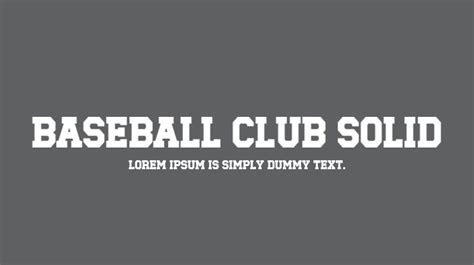
Hey guys! Are you looking to add a sporty and dynamic touch to your designs? Look no further! The iBaseball Club Solid Font is a fantastic choice for anyone wanting to inject some energy and a bit of that ballpark feel into their projects. Whether you’re designing a logo for a sports team, creating eye-catching posters, or just want a font that stands out, this could be exactly what you need. In this guide, we’ll walk you through everything you need to know about the iBaseball Club Solid Font and how to download it for free. Let’s dive in!
What is iBaseball Club Solid Font?
iBaseball Club Solid Font is a typeface designed to capture the essence of baseball and sports culture. Its solid, bold letters convey strength, reliability, and a sense of team spirit, making it perfect for various applications where you want to make a strong visual statement. This font typically features clean lines and a sturdy appearance, making it highly legible and impactful, whether used in large headlines or smaller text blocks. Its distinctive character makes it a favorite among designers looking to add an athletic vibe to their work.
The iBaseball Club Solid Font distinguishes itself through several key characteristics. Firstly, its robustness gives it a commanding presence, ideal for grabbing attention. Secondly, the clean, uncomplicated design ensures excellent readability across different media and sizes. Thirdly, its versatility allows it to be used in diverse projects, ranging from sports branding and advertising to event promotions and merchandise designs. Lastly, its ability to evoke a sense of nostalgia and connection to baseball culture makes it particularly appealing for projects targeting sports enthusiasts.
When considering similar fonts, options like Collegiate, Impact, and Bebas Neue come to mind, but iBaseball Club Solid Font often provides a unique blend of traditional athletic aesthetics with a modern touch. While Collegiate fonts lean heavily into the classic varsity look, and Impact offers extreme boldness, iBaseball Club Solid Font balances these qualities with a contemporary feel. Bebas Neue, known for its clean and tall sans-serif style, lacks the specific sporty character that iBaseball Club Solid Font brings to the table. This makes the iBaseball Club Solid Font a sweet spot for designers seeking something both familiar and fresh.
Why Use iBaseball Club Solid Font?
There are several compelling reasons to use the iBaseball Club Solid Font in your design projects. Primarily, its strong, assertive style makes it perfect for grabbing attention. If you’re working on a project where you need to make a bold statement, this font can be an invaluable asset. Whether you’re designing a sports team logo, creating promotional materials for a game, or developing merchandise, this font ensures your message is delivered with impact. Its solid structure conveys reliability and strength, key qualities for any sports-related brand.
Another significant advantage of using the iBaseball Club Solid Font is its versatility. While it’s particularly well-suited for sports-themed designs, it can also be effectively used in various other contexts. Its clean and legible design makes it suitable for headlines, posters, and even body text, depending on the specific application. This adaptability means you can incorporate it into a wide range of projects, from website headers and social media graphics to print advertisements and event invitations. Its ability to maintain clarity across different sizes and media formats ensures consistent visual appeal.
Moreover, the iBaseball Club Solid Font can significantly enhance the overall aesthetic of your design. Its unique character adds a distinctive touch that can set your work apart from the competition. In a world saturated with generic fonts, using a specialized typeface like this can help you create a memorable and recognizable brand identity. For example, if you’re designing a logo for a new sports bar, this font can instantly convey the atmosphere and energy of the establishment. Similarly, using it in promotional materials for a baseball tournament can evoke a sense of excitement and anticipation among potential attendees. This ability to capture and communicate a specific mood or theme makes it a valuable tool for designers aiming to create impactful and engaging visuals.
In conclusion, the iBaseball Club Solid Font is a fantastic choice for adding a sporty and dynamic touch to your design projects. Its bold, solid letters convey strength and team spirit, making it perfect for logos, posters, and promotional materials. By following the steps outlined in this guide, you can easily find, download, and install this font for free. Remember to use it effectively by considering the context of your project, pairing it with complementary fonts, and paying attention to color and contrast. So go ahead, give your designs that extra edge with the iBaseball Club Solid Font ! Happy designing, guys!